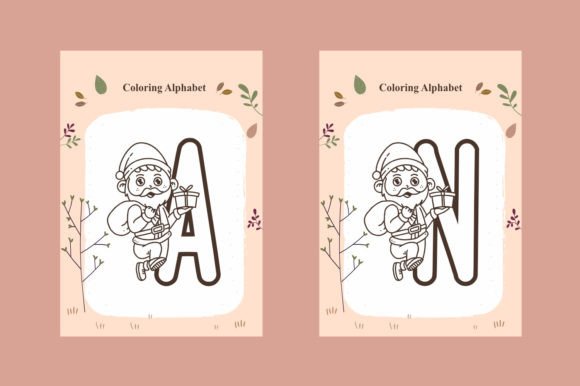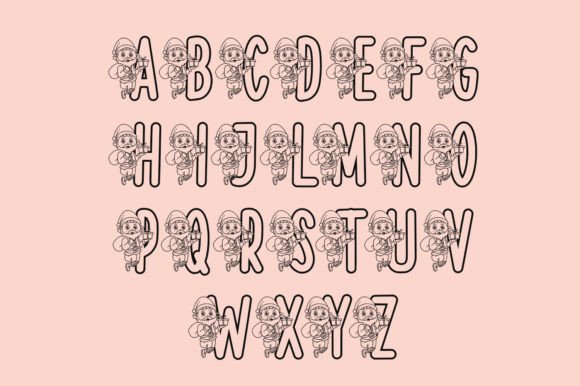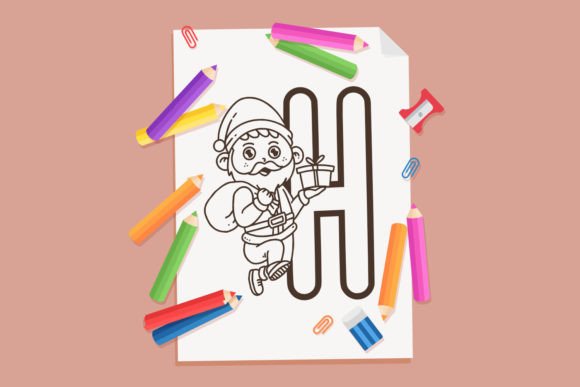
Introduction to Santa’s Coloring Font
As a designer, there’s nothing quite like the thrill of bringing a creative project to life. You’ve spent hours brainstorming ideas, pouring over reference images, and fine-tuning every detail. But sometimes, all it takes is a single element to elevate your design from good to great. For me, that element is Santa’s Coloring Font – a high-quality, free download that adds a touch of whimsy and fun to any design.
With its transparent background and playful characters, Santa’s Coloring Font is the perfect addition to any design project. Whether you’re creating a festive holiday card or a fun children’s book, this font is sure to bring a smile to your audience’s faces. And the best part? It’s completely free to download and use in your designs.
In this article, we’ll take a closer look at the features and benefits of Santa’s Coloring Font, and explore some creative ways to use it in your own projects.
Key Features of Santa’s Coloring Font
- High-quality, unique design for creative projects, perfect for illustrations, graphics, and more.
- Transparent background option allows for seamless integration into various design backgrounds.
- Designed as a versatile design resource, suitable for various design projects, including Christmas-themed designs, illustrations, and more.
Honest Review: Santa’s Coloring Font
As a designer, I was excited to dive into “Santa’s Coloring Font” and see how it would fit into my next creative project. I’m happy to report that this font is a great addition to any design resource collection.
- High-quality design: The font is crisp and clear, making it perfect for printing or digital use.
- Transparent background: This feature makes it easy to use the font on any background or design element.
However, I did encounter a few limitations with “Santa’s Coloring Font”.
- Limited character set: The font only includes a limited set of characters, which may not be suitable for longer texts or complex designs.
- No bold or italic options: If you need to emphasize certain text, you’ll need to use a different font or adjust the design accordingly.
Overall, I’m impressed with “Santa’s Coloring Font” and would definitely recommend it as a design resource for your next creative project. While it has some limitations, its high-quality design and free download make it a valuable addition to any designer’s toolkit.
Santa’s Coloring Font is a high-quality design resource that can enhance any creative project. With its free download and transparent background, it’s perfect for designers and artists looking to add a festive touch to their work.
Experiment with different color combinations and layering techniques to get the most out of Santa’s Coloring Font.
Santa’s Coloring Font is perfect for holiday-themed projects, such as Christmas cards, gift tags, and party decorations.
While Santa’s Coloring Font is a high-quality design resource, it’s not intended to be heavily customized. However, designers can experiment with font styling, color manipulation, and other creative techniques to enhance the font’s appearance in their projects. Keep in mind that significant modifications may affect the font’s overall aesthetic and legibility.